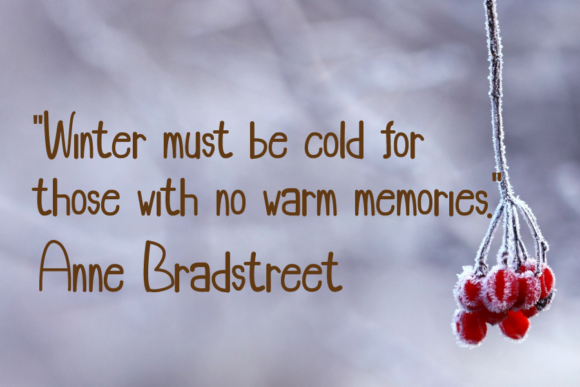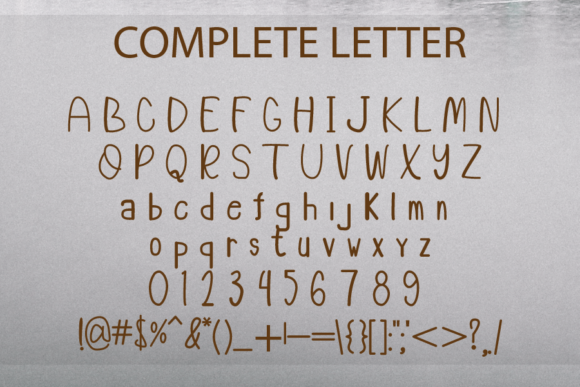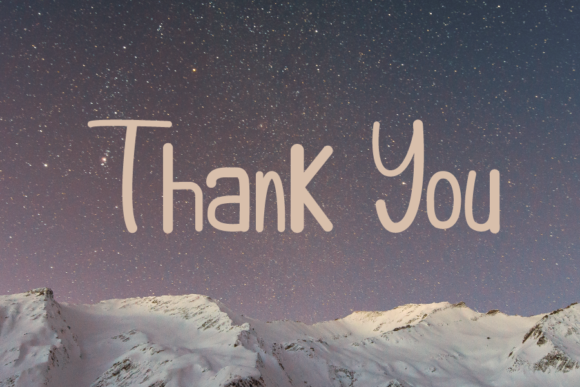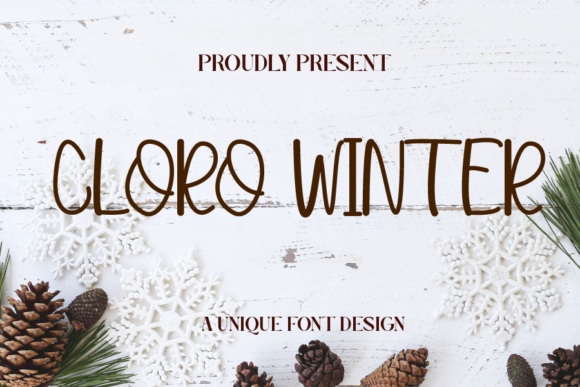
Introducing Cloro Winter Font: The Cute and Quirky Handwritten Font to Elevate Your Creativity
Are you a designer, crafter, or DIY enthusiast looking for a unique and eye-catching font to add a personal touch to your projects? Look no further than Cloro Winter Font, a delightful and quirky handwritten font that’s sure to make your creative ideas stand out. In this article, we’ll dive into the features and benefits of Cloro Winter Font, and explore how you can use it to take your designs to the next level.
What is Cloro Winter Font?
Cloro Winter Font is a carefully crafted handwritten font that’s perfect for adding a touch of personality to your designs. With its playful and whimsical feel, this font is ideal for a wide range of creative projects, from DIY crafts and papercrafts to digital designs and branding materials. Whether you’re creating invitations, greeting cards, or social media graphics, Cloro Winter Font is sure to bring a smile to your audience’s faces.
Key Features of Cloro Winter Font
• Cute and Quirky Design: Cloro Winter Font boasts a unique and charming design that’s sure to capture attention. Its handwritten feel makes it perfect for creating personal and relatable content.
• Handwritten Style: This font features a natural, handwritten style that’s perfect for adding a touch of warmth and personality to your designs.
• Easy to Read: Despite its playful feel, Cloro Winter Font is easy to read, making it perfect for use in a variety of contexts, from body text to headings.
• Versatile: Cloro Winter Font is suitable for a wide range of creative projects, from digital designs to print materials.
Benefits of Using Cloro Winter Font
So why should you choose Cloro Winter Font for your creative projects? Here are just a few benefits of using this delightful font:
• Adds Personality to Your Designs: With Cloro Winter Font, you can add a touch of personality and whimsy to your designs, making them more relatable and engaging.
• Stand Out from the Crowd: This unique font will help your designs stand out from the crowd, making them more noticeable and memorable.
• Perfect for Branding: Cloro Winter Font is perfect for use in branding materials, such as logos, business cards, and social media graphics, where you want to make a lasting impression.
How to Use Cloro Winter Font
Using Cloro Winter Font is easy. Here are a few tips to get you started:
• Pair it with Other Fonts: Combine Cloro Winter Font with other fonts to create a unique and eye-catching design.
• Experiment with Colors: Try out different colors and textures to add depth and interest to your designs.
• Use it for Headings and Titles: Cloro Winter Font is perfect for use in headings and titles, where you want to make a bold statement.
In conclusion, Cloro Winter Font is a beautiful and quirky handwritten font that’s perfect for adding a touch of personality to your creative projects. With its cute and playful design, easy readability, and versatility, this font is sure to become a favorite among designers and crafters. So why not give it a try and see how it can elevate your designs?
Whether you’re a seasoned designer or a DIY enthusiast, Cloro Winter Font is a great addition to your font collection. So go ahead, get creative, and make your designs stand out with Cloro Winter Font!